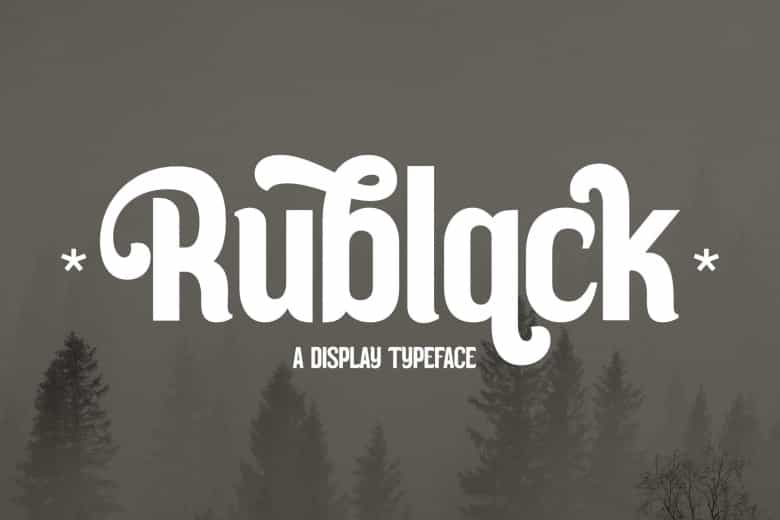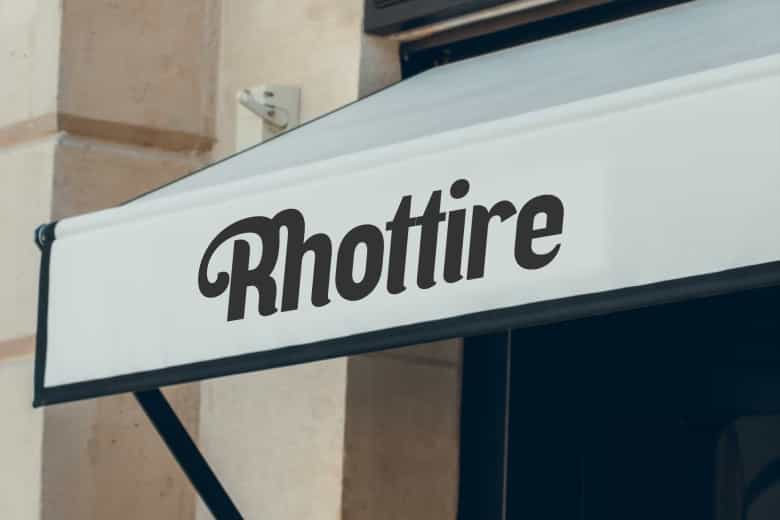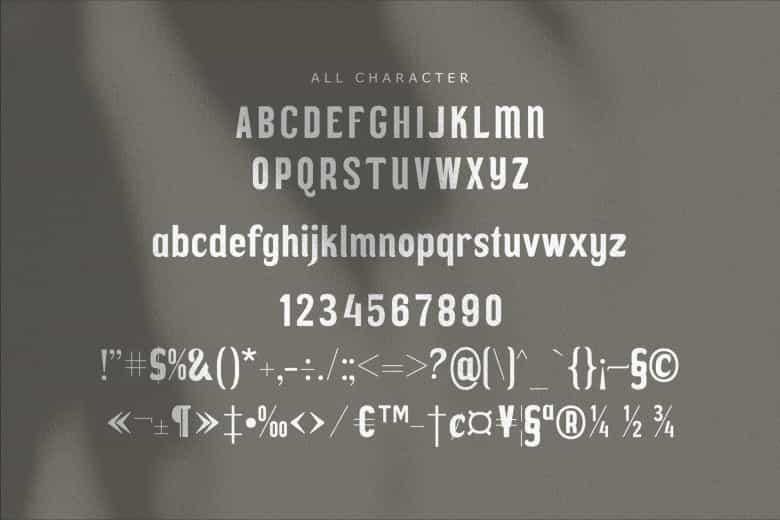
Rublack is an elegant yet contemporary serif typeface, boasting its distinct style and contemporary appearance. Ideal for creating stylish logos, movie or book styles, fashion labels clothing labels letters quotes etc this font can be used in multiple applications including movie, book style logos logos magazine letters quotes etc.